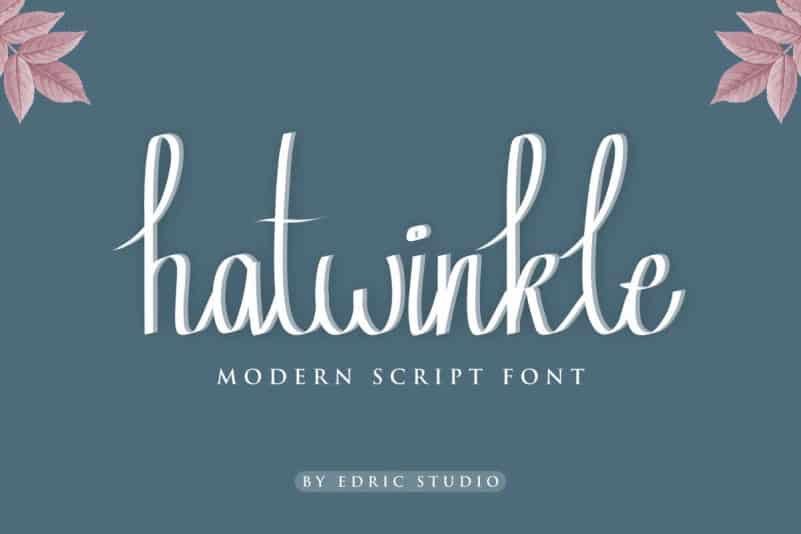
Hatwinkle Calligraphy Font
Edric Studio in 2020 Present to you : Hatwinkle Calligraphy Font
This is a display script font family made in Bandung-Indonesia. It has three styles : Reguler and Italic. Made by Widi and Sarah in Bandung and Garut – Indonesia.
Hatwinkle Calligraphy Font has great set of glyphs , you can explore further more using this font. It will suit many projects : Logo type, flyer, stationery, business card, signage, flyer, brochure etc.  With your creativity, there’s no limit using with this font.
Hatwinkle Calligraphy Font will be awesome for Wedding, Florist, musician, makeup artist, events, promotions, gardening, fashion, gift etc